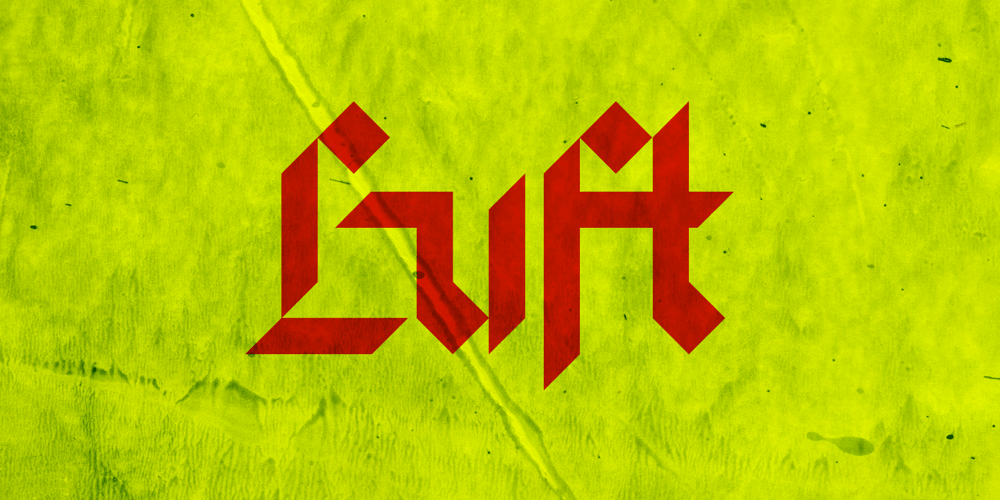
Luft
Luft font
Luft Font Family was designed by Sebastian Cabaj and published by Sebastian Cabaj. Luft contains 1 styles and family package options. Luft is blackletter typeface with a modern feel. Inspired by old writing letters and preparation for using in modern design.